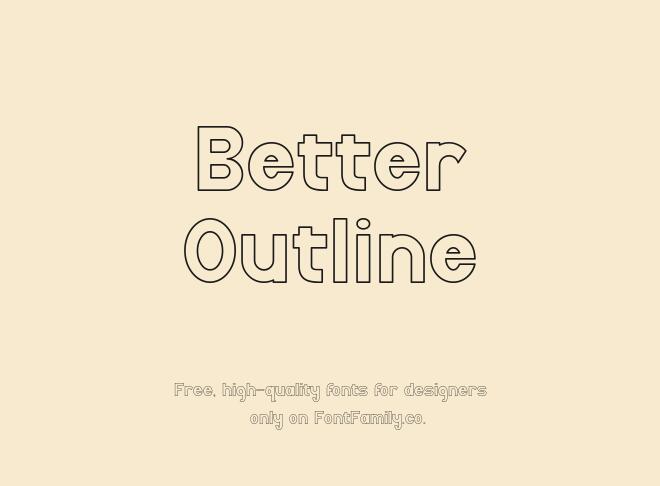
Better Outline Font
The Better Outline Font, designed by the Creative Font Foundry, is a modern and geometric typeface featuring a distinct outline style. Released in 2019 under the Open Font License, it presents a minimalist aesthetic that's perfect for display purposes. This font is versatile, clean, and highly readable, making it a remarkable choice for branding, signage, and poster designs. Compared to other outline fonts, Better Outline Font stands out for its balanced line-work and optimal kerning, ensuring a professional look in every application. Its modern design is reminiscent of contemporary architecture, making it a great choice for projects that require a sleek, modern touch. Designers will appreciate the font's uniqueness and the way it can add sophistication to any design. Choose Better Outline Font for a fresh, modern, and minimalist design appeal.